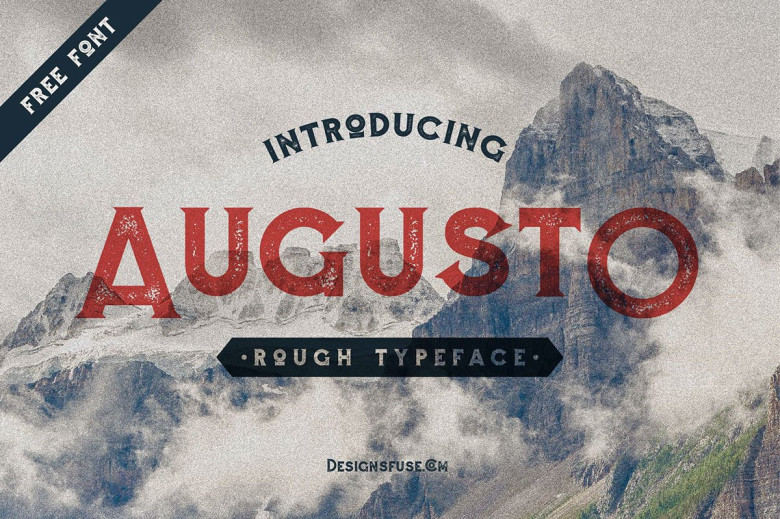
Augusto Rough Typeface
Today continue to present you a new typeface Rough, Augusto Rough Typeface was designed by Design Fuse, a professional designer from Bandung, Indonesia. The font comes in a clean and rough style (WARNING: the rough font file is quite large so give it a second to install), supports latin languages, and is perfect for Logos, Posters, Mock-Ups, and much more!